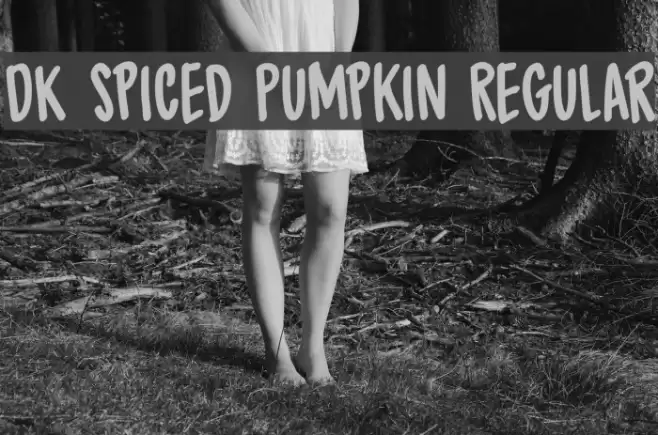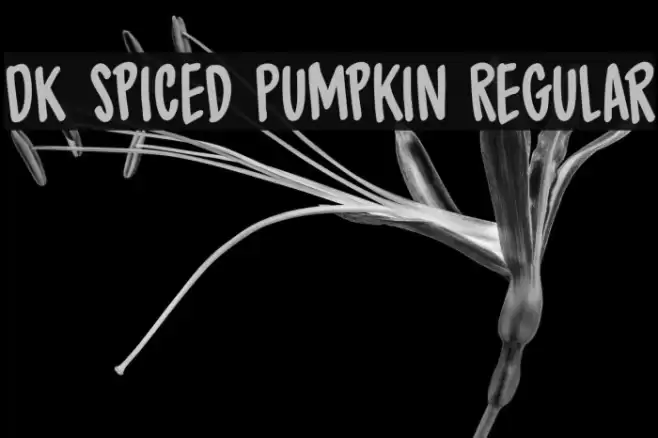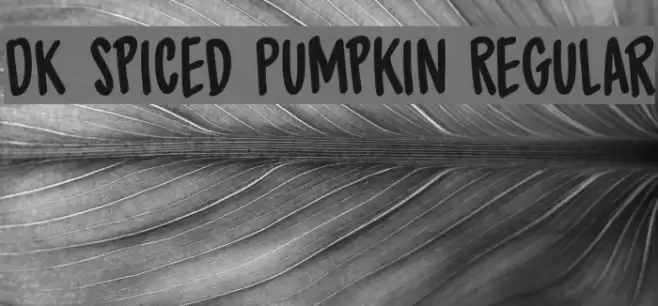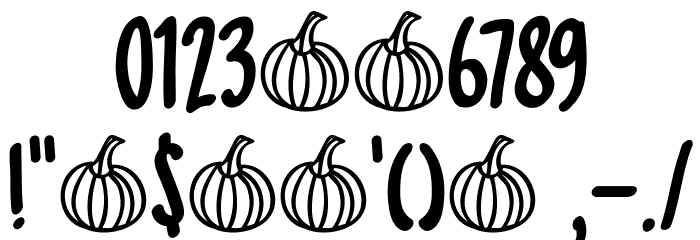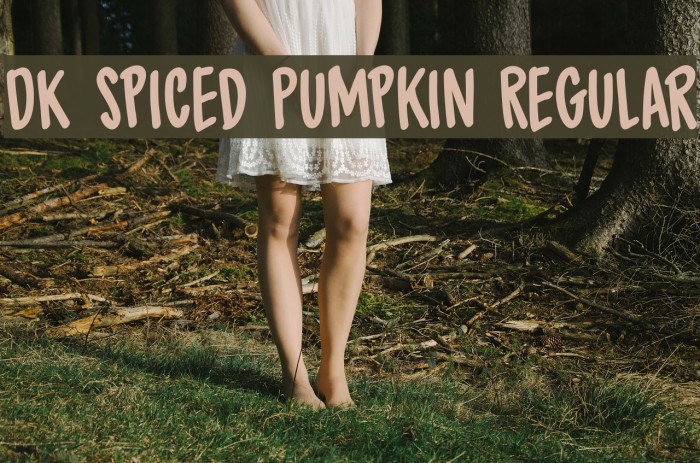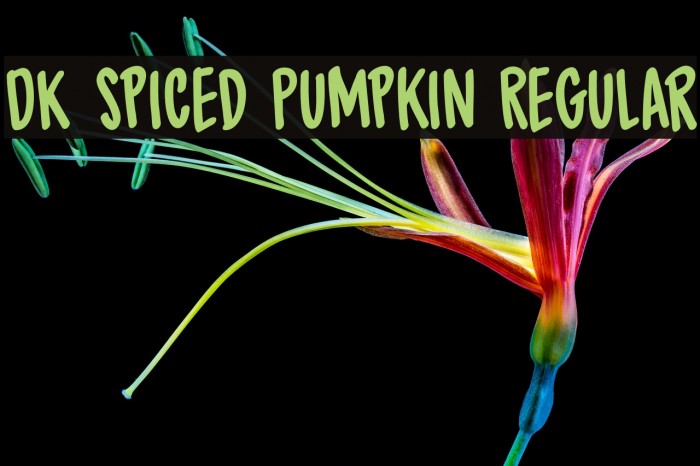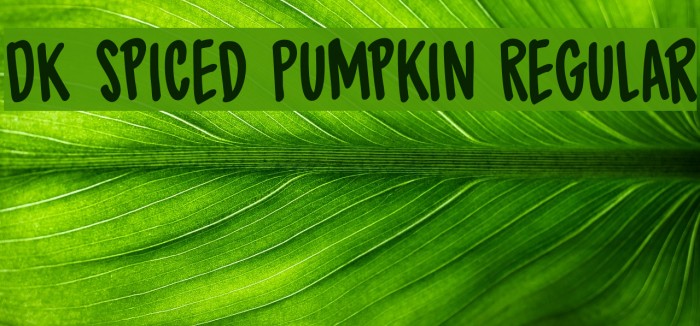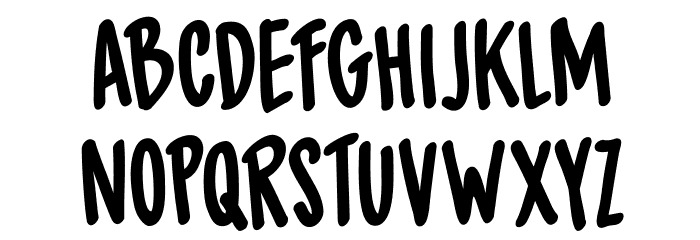
DK Spiced Pumpkin Regular Font
DK Spiced Pumpkin Regular Description
This playful and bold font features a handwritten style with a whimsical touch. The characters are rounded and slightly irregular, giving a casual and friendly appearance. The uppercase and lowercase letters are consistent in style, maintaining a cohesive look. The numbers are bold and easily readable, while the special characters, including the pumpkin icons, add a unique and festive element. This font is perfect for projects that require a fun and approachable aesthetic.
A playful, bold handwritten font with whimsical, rounded characters from Handwritten fonts.
- Proposed Projects: Ideal for holiday-themed designs, children's books, greeting cards, and playful branding.